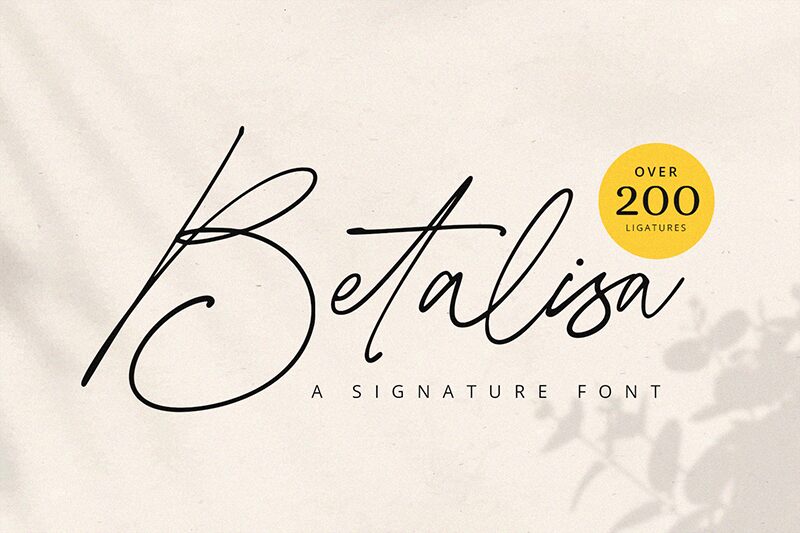
Betalisa
Betalisa font by Alpaprana Studio is a light handwritten font infused with elegance and sophistication. The letters flow organically with a script touch, presenting a perfect blend of contemporary style with expressive and ornamental tones. Betalisa stands out in the DIY design community for its superior versatility and high-quality rendering making it an unrivaled addition to your collection.
This free font works splendidly in invitation cards, quotes, Instagram posts, book covers, listing websites, ads and promotional material designs. Have it as part of your branding strategies for logo designs or branding packages as companion fonts. Or make Betalisa the key ingredient in any artistic poster or packaging design you’re working on.